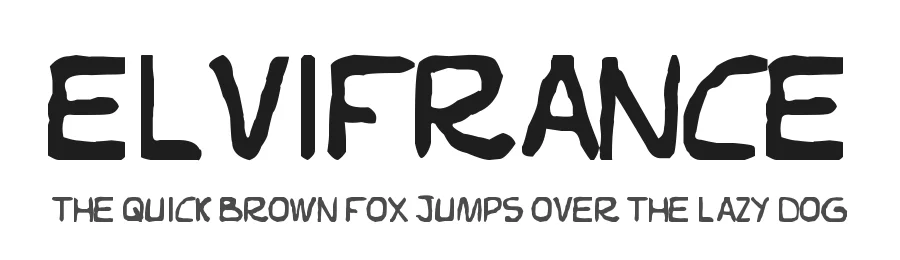
About Amateur Comic Font
Amateur Comic is a decorative font designed by Eric Allen. It includes 103 glyphs, a medium weight, TTF (TrueType) format, and 107 languages. Amateur Comic is free to download; check the license details on this page before commercial use. Decorative fonts like Amateur Comic work best for logos, posters, packaging, and standout headlines.
Amateur Comic Font is a decorative font that shines as a display or heading face. Pair it with a clean sans-serif or serif font for body text β the contrast creates a clear hierarchy while the two styles stay balanced and easy to read.
Amateur Comic Font
by Eric Allen